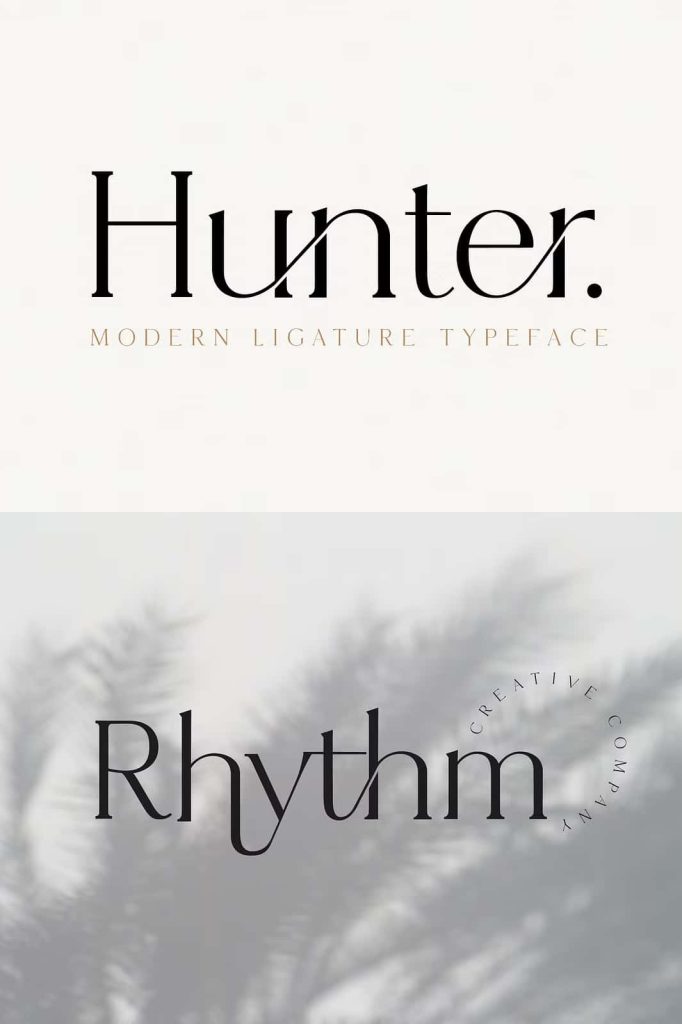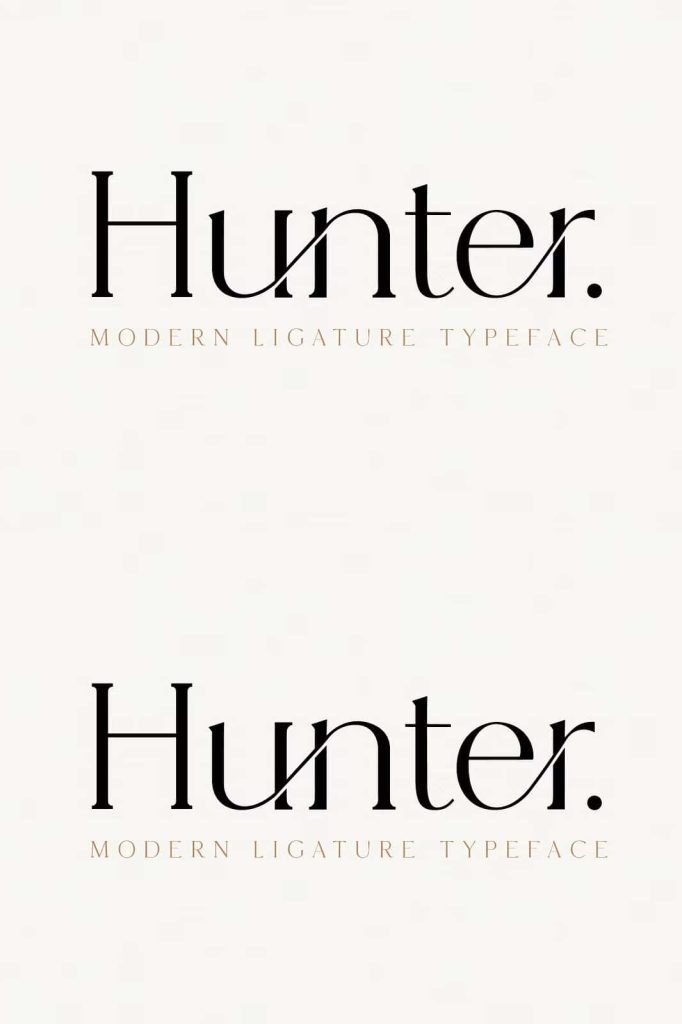
Hunter: An Elegant Ligature Font Designed for Refined and Expressive Typography
Hunter is an elegant and distinctive typeface created to bring sophistication, flow, and personality into modern typography. Designed with carefully crafted ligatures, this font allows letters to connect smoothly and naturally, creating a seamless rhythm across words. Rather than relying on ornamentation, Hunter uses intelligent letter connections to add visual interest and refinement, making it a powerful choice for designers who value subtle detail and typographic finesse.
This font is especially well suited for projects where typography plays a central role. Hunter transforms simple words into expressive visual elements, giving logos, monograms, and editorial highlights a polished and intentional appearance.
Refined Letterforms with Thoughtful Ligatures
At the heart of Hunter’s design is its extensive ligature system. With 20 custom ligatures, the font creates smooth transitions between specific letter combinations, enhancing visual harmony without disrupting readability. These ligatures allow text to flow naturally, adding elegance and cohesion to each word.
The ligatures are designed to feel organic rather than decorative. They support the structure of the letters while introducing subtle character, ensuring that the typography remains clean and professional.
Ligatures That Enhance, Not Overpower
Hunter’s ligatures are intentionally restrained. They activate only when needed, providing refinement without drawing excessive attention to themselves. This approach makes the font suitable for both expressive display use and more controlled typographic applications.
For designers who prefer a cleaner look, ligatures can be easily turned off, allowing Hunter to function as a more traditional typeface for body copy or longer text.
Perfect for Logos, Monograms, and Wordmarks
Hunter excels in branding applications where uniqueness and elegance are essential. Its smooth letter connections make it an excellent choice for wordmark logos, personal brands, and monograms. The font adds a sense of craftsmanship and intention, helping brands communicate quality and attention to detail.
When used in logos, Hunter creates a strong visual identity that feels timeless rather than trend-driven. Its balanced proportions and refined curves ensure consistency across print and digital platforms.
Ideal for Editorial Design and Pull Quotes
In editorial layouts, Hunter brings sophistication to headlines and pull quotes. Its elegant construction draws the reader’s eye without overwhelming the page. The ligatures add movement and rhythm, making highlighted text feel curated and thoughtfully designed.
Hunter works particularly well in magazines, journals, and creative publications where typography contributes to storytelling. It enhances the visual tone of the content while maintaining clarity and readability.
Versatile Character Set for Professional Use
Beyond its ligatures, Hunter includes a complete set of numbers and punctuation, ensuring versatility across a wide range of design needs. This comprehensive character set allows designers to use the font confidently in professional projects without needing supplemental typefaces.
The ability to toggle ligatures on or off gives designers full control over the font’s behavior, making Hunter adaptable to both decorative and functional typography.
Balanced for Display and Supporting Text
While Hunter shines in display settings, its thoughtful construction also allows it to function effectively in supporting text roles when ligatures are disabled. This flexibility makes it a valuable addition to any type library, capable of handling multiple roles within a single project.
Designers can pair Hunter with clean sans serif fonts for contrast or use it consistently across a brand system to create a cohesive typographic voice.
Why Choose Hunter?
Hunter offers a refined typographic solution for designers who seek elegance without excess. Its smooth ligatures, balanced letterforms, and versatile character set make it suitable for branding, editorial design, and expressive typography.
If your project calls for a font that feels unique, polished, and adaptable, Hunter delivers a sophisticated typographic experience that elevates words into visual statements.